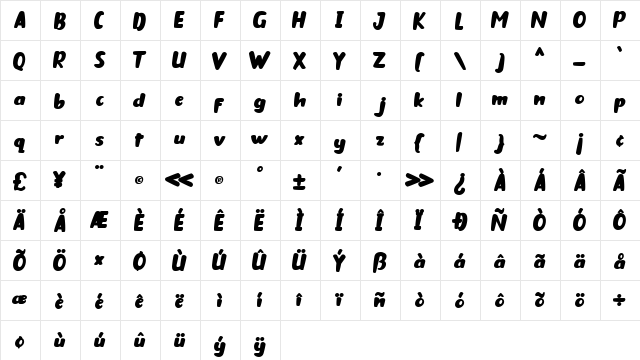
Dino Kids Regular
| Foundry | DianHaniff |
| Designer | Dianhaniff |
Design Context for Dino Kids Typeface
Dino Kids trades formality for fun, with bouncy, characterful letterforms that bring warmth and energy to any project.
Font Pairing: Pairs well with a rounded or humanist sans for body copy, maintaining the friendly tone without relying on Dino Kids to carry extended reading.
Pro Tip: Avoid using Dino Kids for long passages of text — it works best for headlines, labels, and short calls to action.